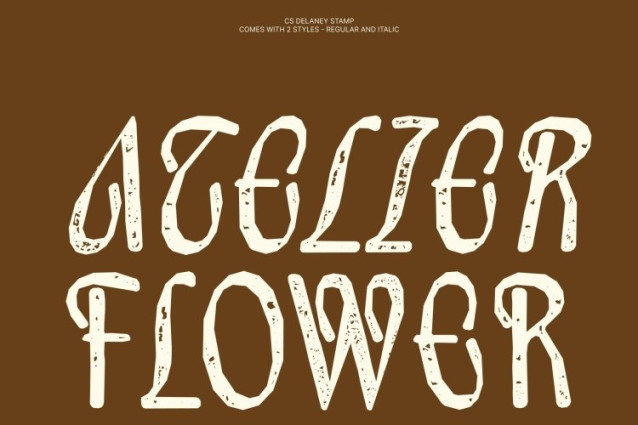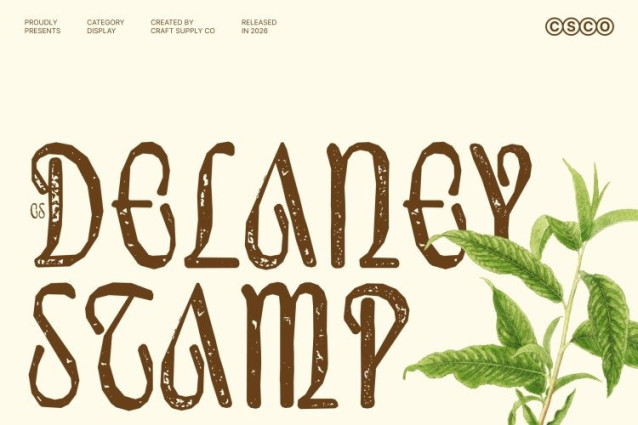
CS Delaney Stamp Font
CS Delaney Stamp Font – This is a refined modern sans-serif font defined by its clean lines, minimalist structure, and balanced proportions. Its sleek appearance creates a calm and polished visual tone, making it ideal for projects that demand a contemporary and sophisticated aesthetic.
Subtle Stamp Texture for Character
The stamped texture introduces a gentle handcrafted feel, adding depth and personality without disrupting the font’s clarity. This subtle detail gives the typeface a distinctive presence that feels both modern and tactile.
Sophisticated and Timeless Appeal
With its restrained elegance and harmonious structure, the font conveys quiet luxury and professionalism. It captures attention through simplicity, making it perfect for designs that aim to communicate refinement and confidence.
Versatile for Premium Design Applications
This font shines in luxury branding, editorial layouts, packaging, corporate identities, and digital platforms. Its versatility and understated elegance ensure a polished and memorable visual identity across both print and screen.